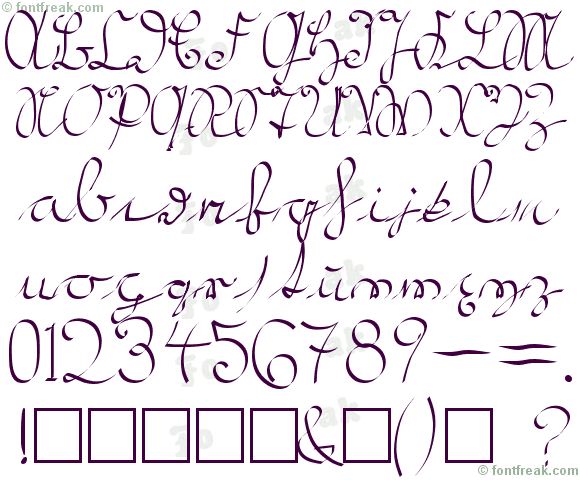
Kroeburn Regular
Kroeburn, created by Kiwi Media, is an enchanting script font that captures attention with its flowing, handwritten style. This shareware font is characterized by its elegant strokes and organic forms, making it a perfect choice for projects that require a touch of sophistication. The visual characteristics of Kroeburn include a light to medium stroke weight, which balances delicacy with readability. The varying contrast within the letters adds depth, while the generous spacing gives it an airy feel, allowing each character to shine.
Kroeburn is ideal for various creative applications, including wedding invitations, where its romantic flair can enhance the overall aesthetic. It also works beautifully for movie posters, lending a sense of drama and personality that can captivate an audience. Additionally, restaurant menus can benefit from Kroeburn's stylish curves, inviting patrons to indulge in a unique dining experience. Graphic designers looking for a standout typeface for branding projects will find that Kroeburn adds a distinctive edge to logos and promotional materials. Content creators can also utilize this font for social media graphics, making their posts visually appealing and engaging.
Targeting graphic designers, small business owners, and content creators, Kroeburn offers a versatile solution for those seeking a unique typographic voice. Its ability to convey emotion and style makes it an invaluable asset in any designer's toolkit. With its charming character and artistic flair, the Kroeburn font free download provides an opportunity for creatives to elevate their projects. Stand out in a crowded market with this captivating font that balances elegance and approachability, ensuring your designs leave a lasting impression.